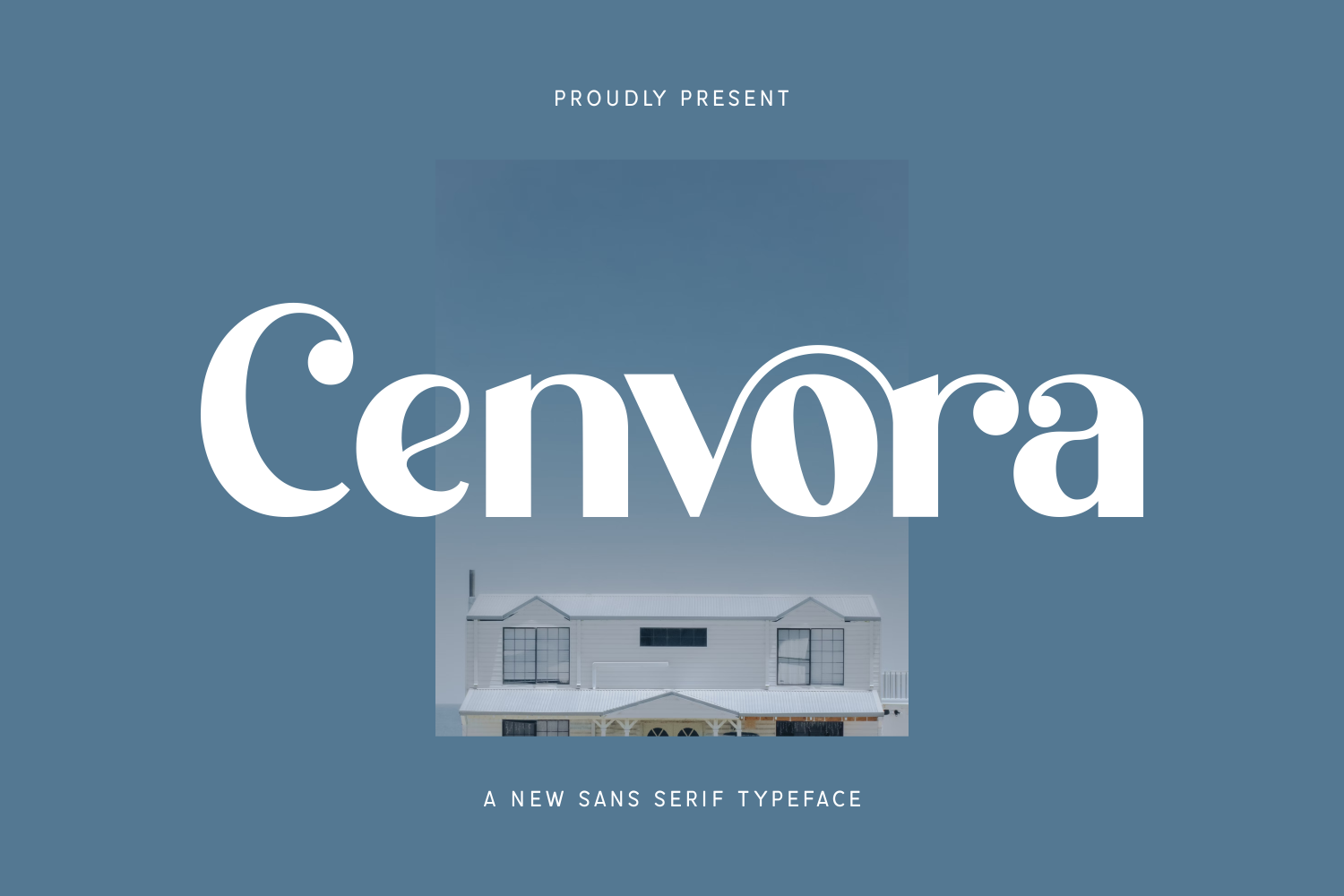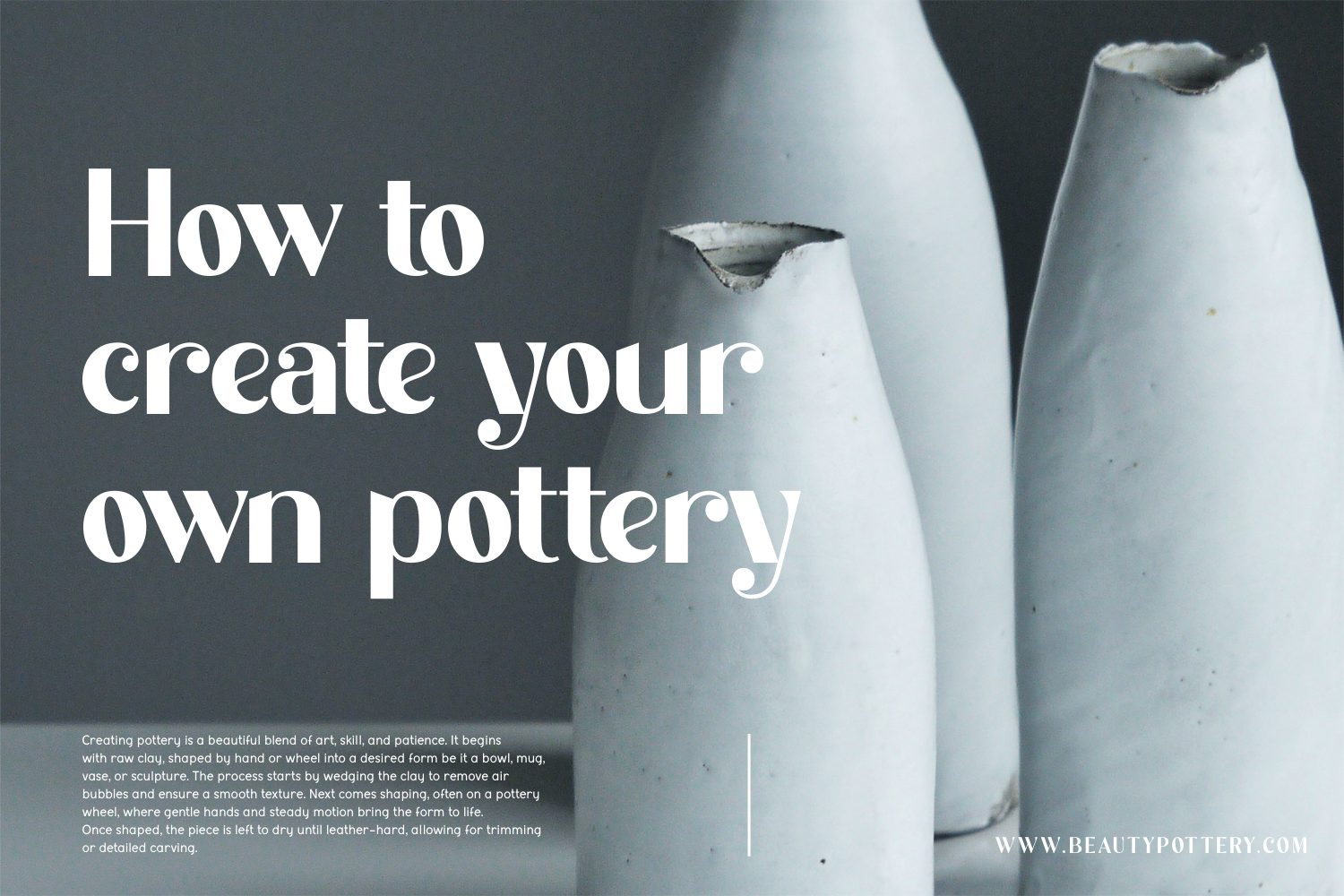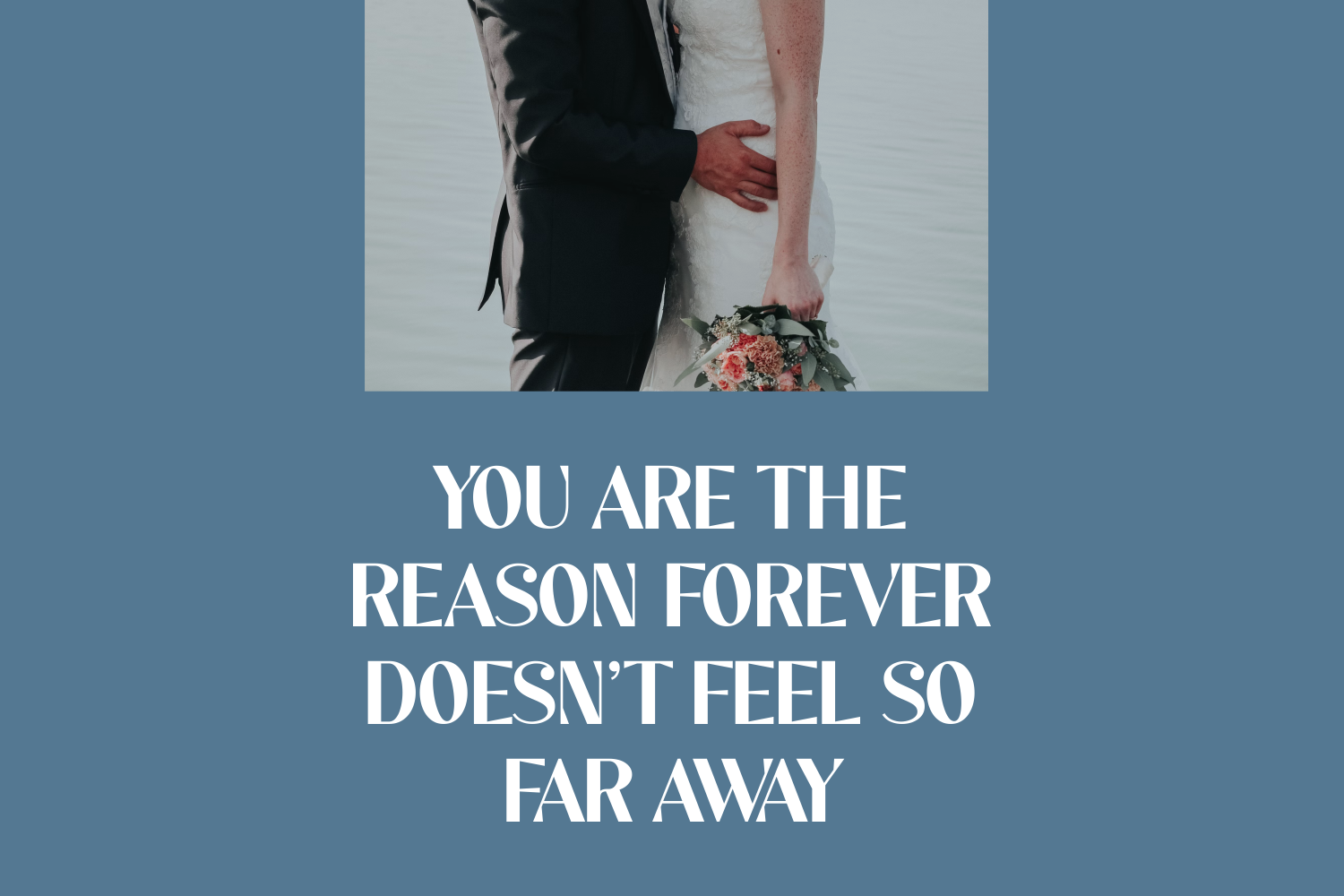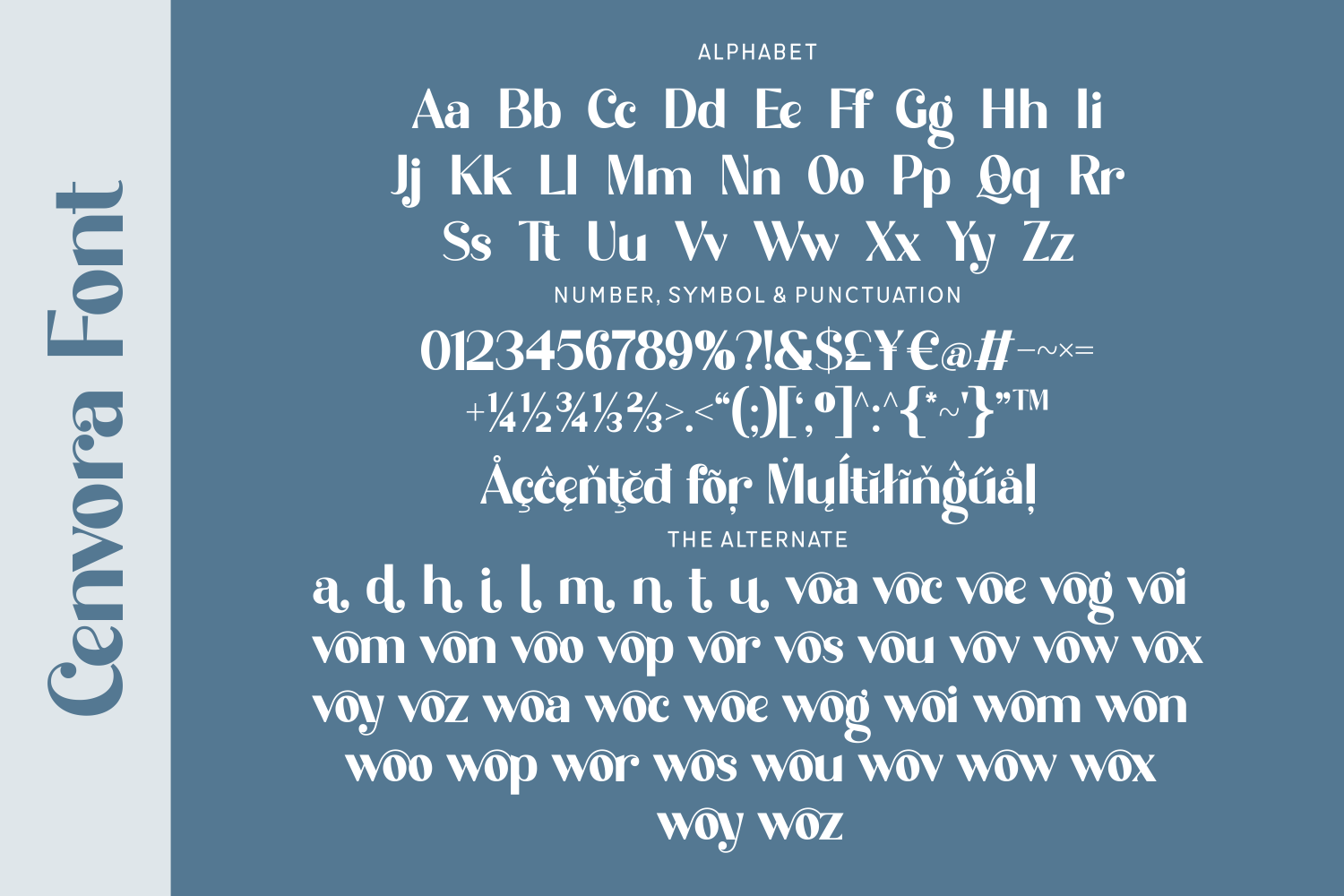
Cenvora is a contemporary sans serif font that beautifully blends bold structure with ornamental elegance.
Its uppercase and lowercase forms maintain strong readability while exuding flair through alternates that bring fluidity and charm to any design. From high-impact headlines to expressive typographic compositions, Cenvora stands out with its unique personality and multilingual support.